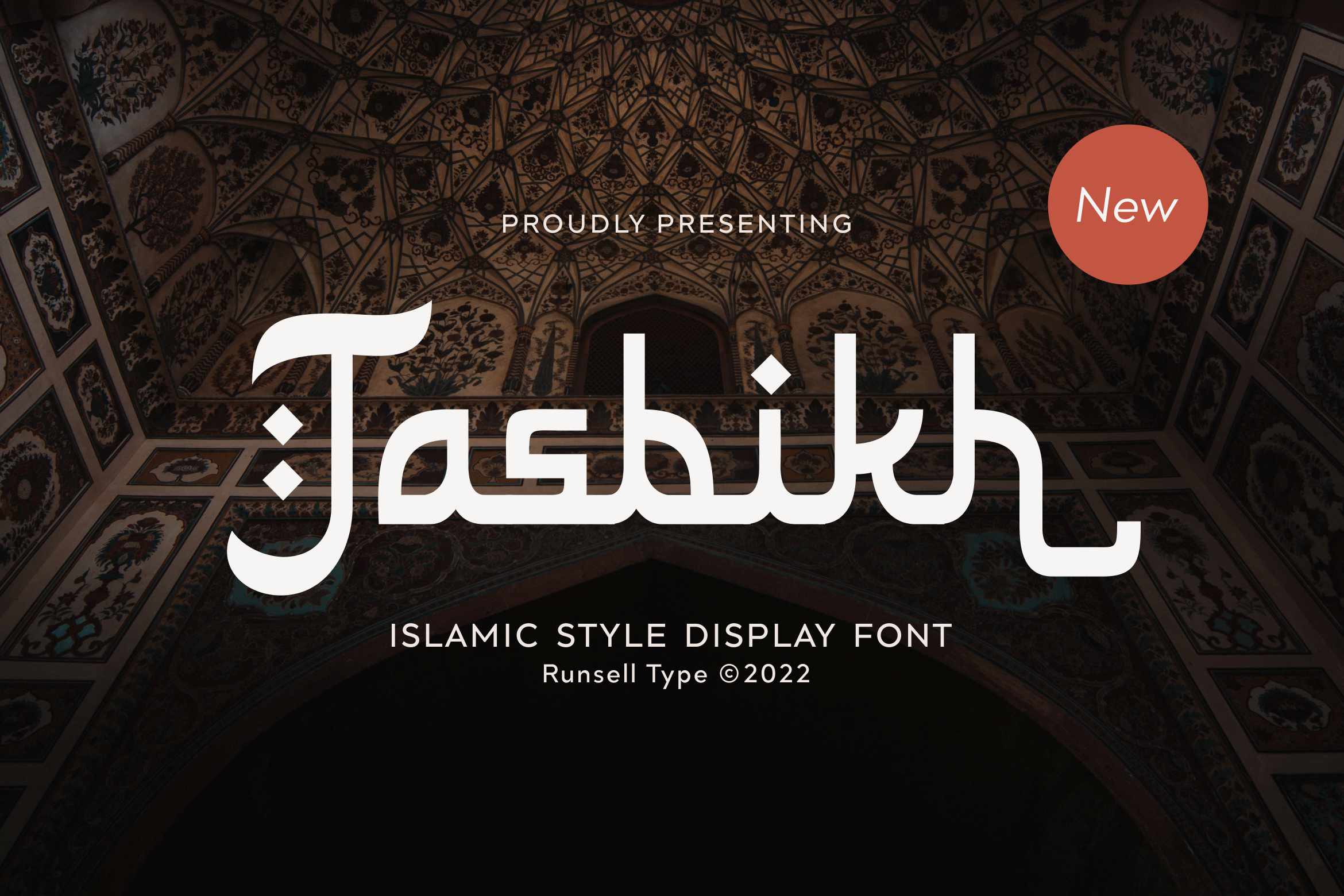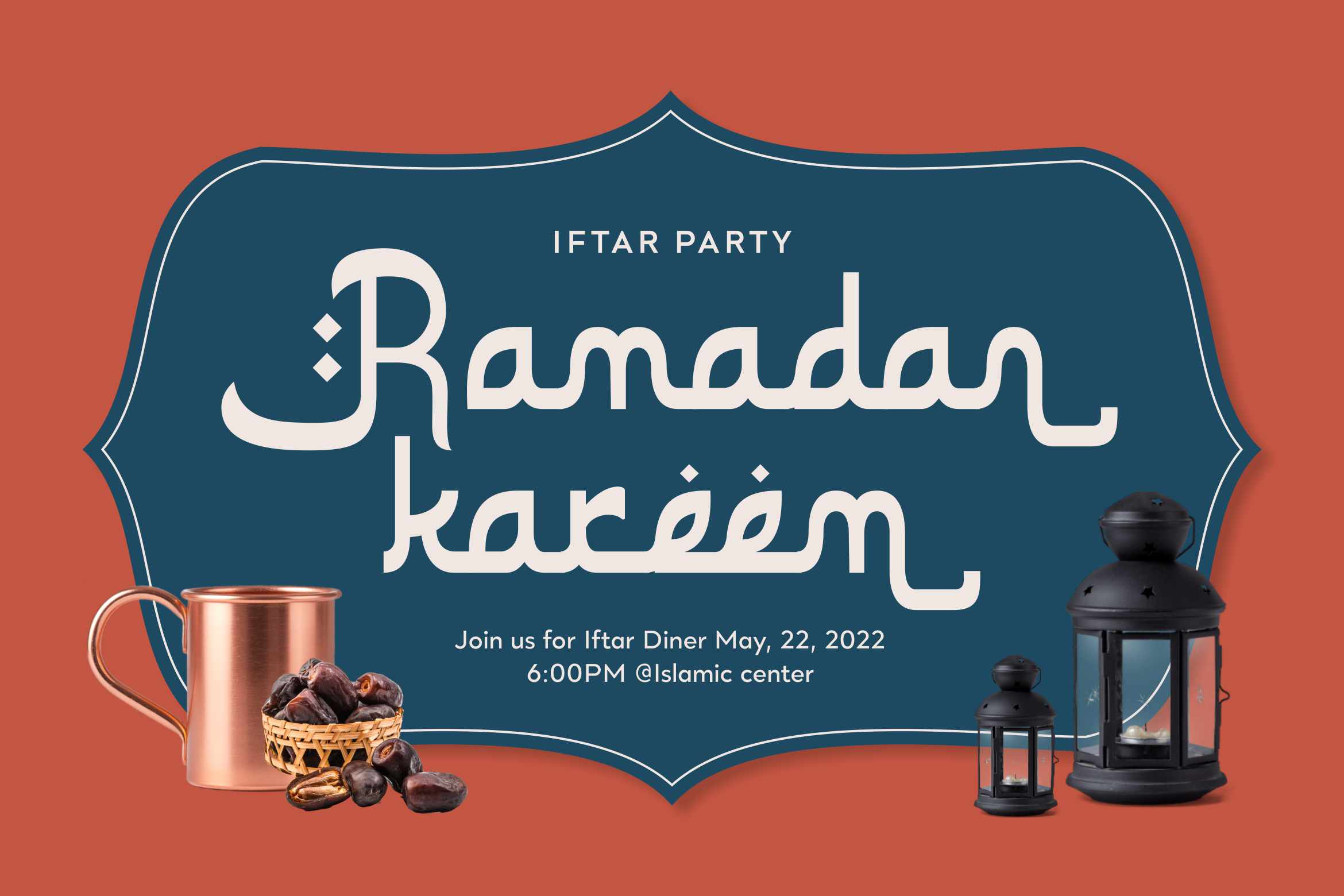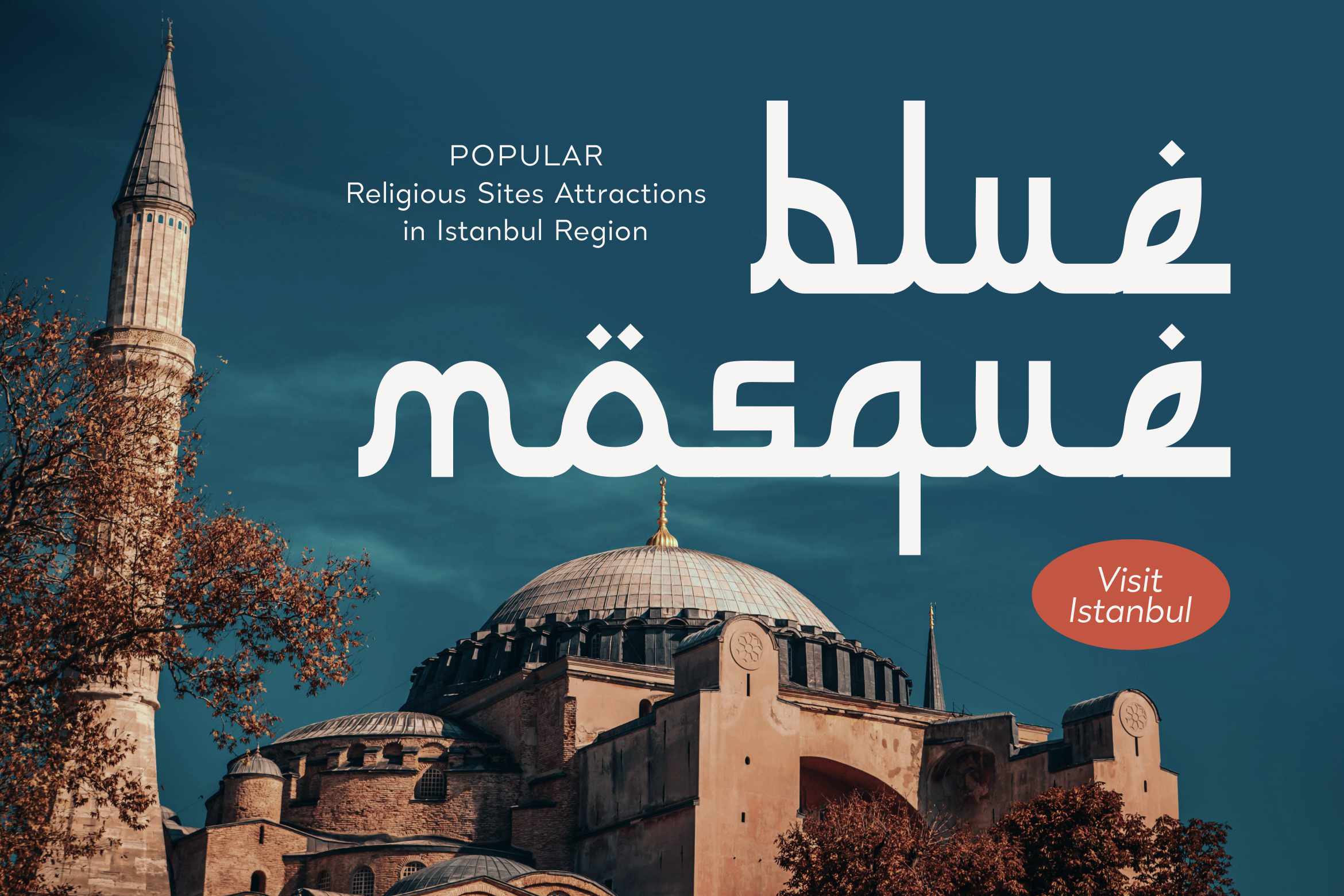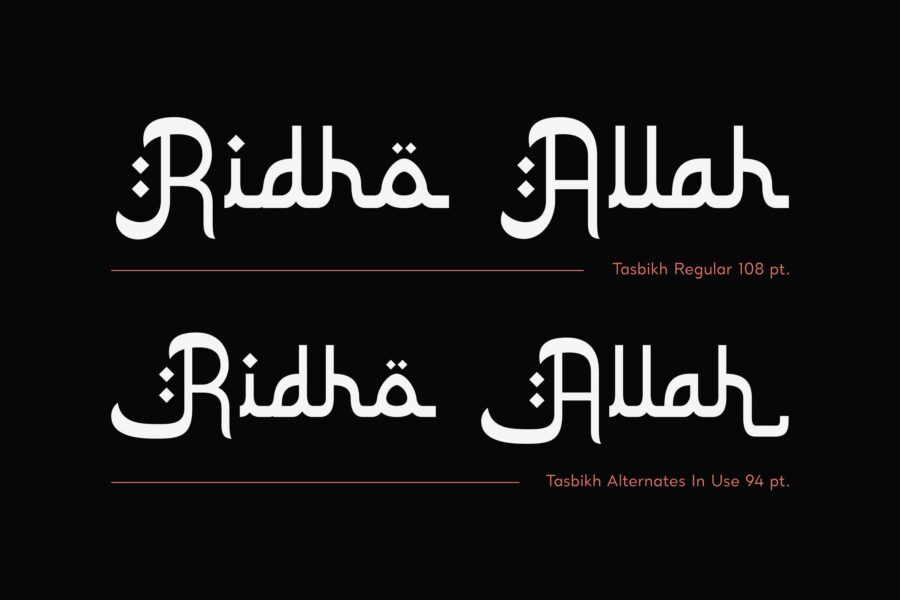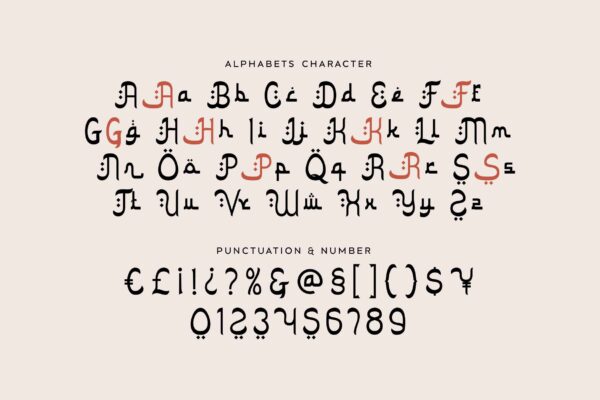
Tasbikh is a modern Islamic display font that combines elements of Middle Eastern culture with contemporary visual expression. Its unique curves and elongated horizontal strokes provide a harmonious blend of traditional Arabic calligraphy and clean Latin letterforms, perfect for conveying elegance and spirituality in a text. Alternating different characters and ligatures allow for creative and decorative compositions without losing readability.
Ideal for Ramadan promotions, Islamic branding, mosque signages, or cultural publications, Tasbikh stands out with a soft yet bold presence. The font includes uppercase, lowercase, numbers, and special characters, making it versatile for both digital and print use. Whether used in logo designs, event posters, or editorial titles, Tasbikh evokes a sense of cultural pride and spiritual depth.